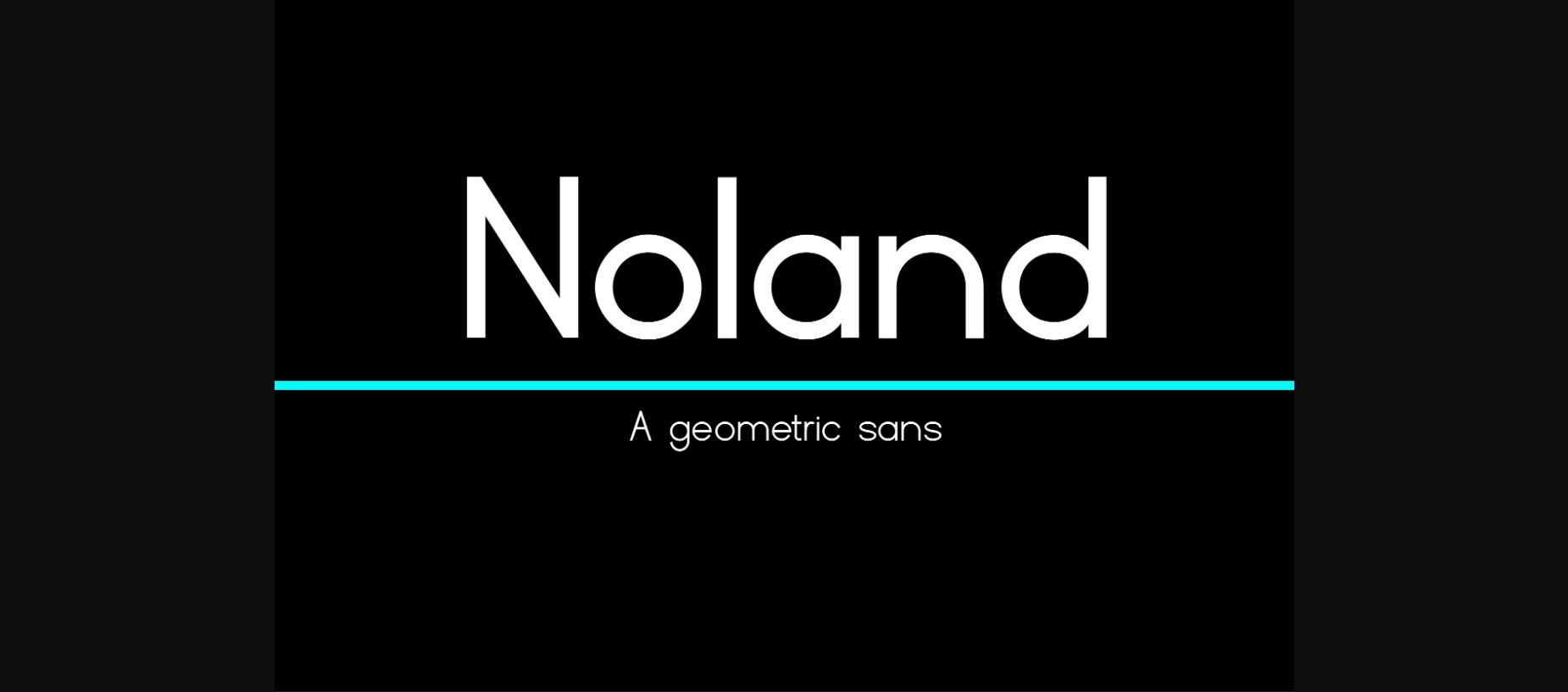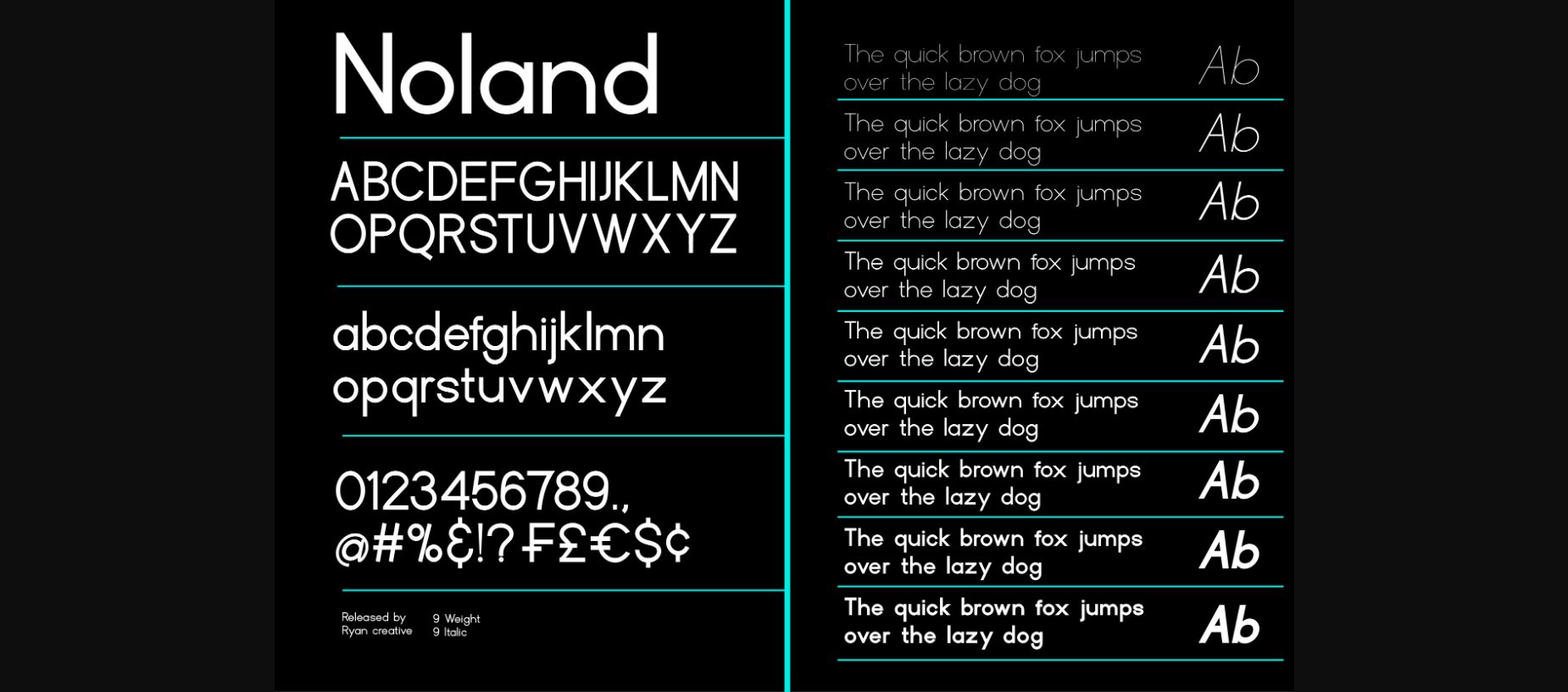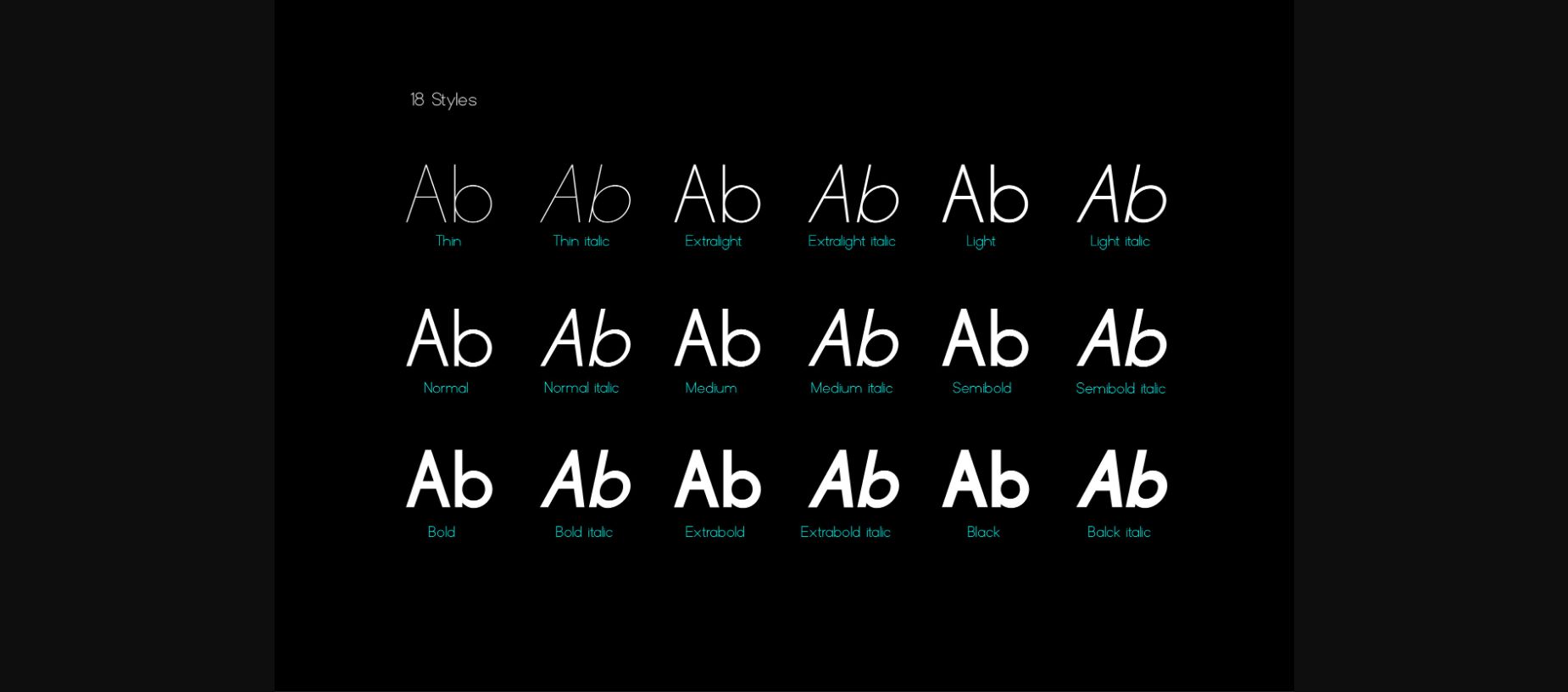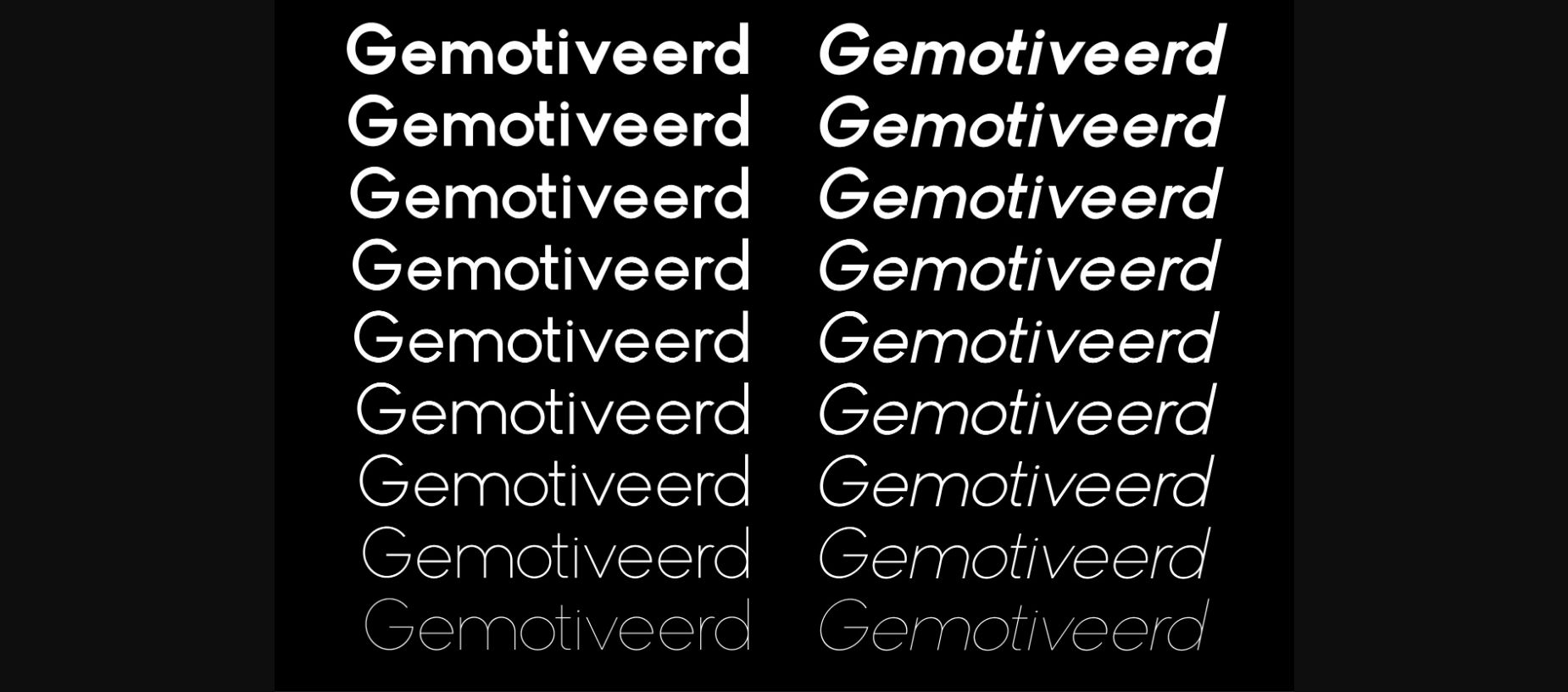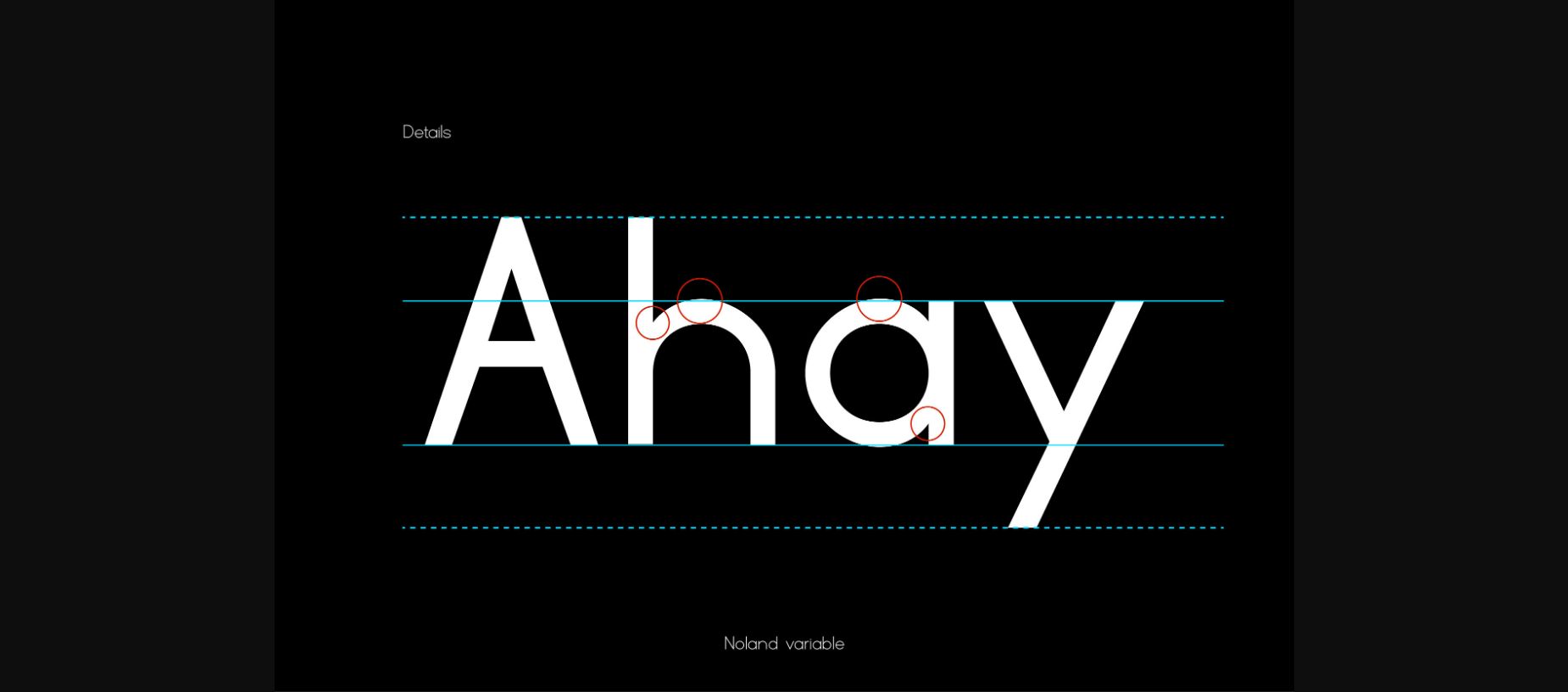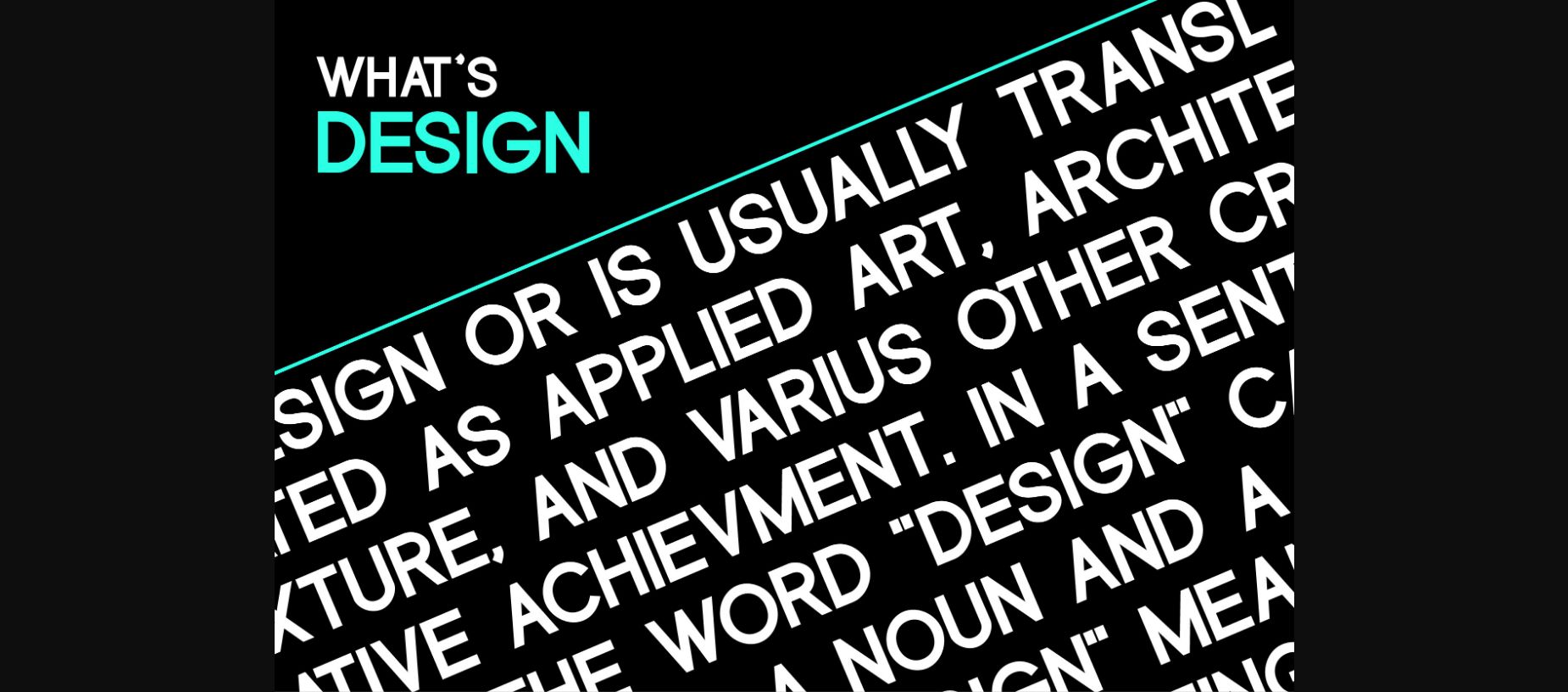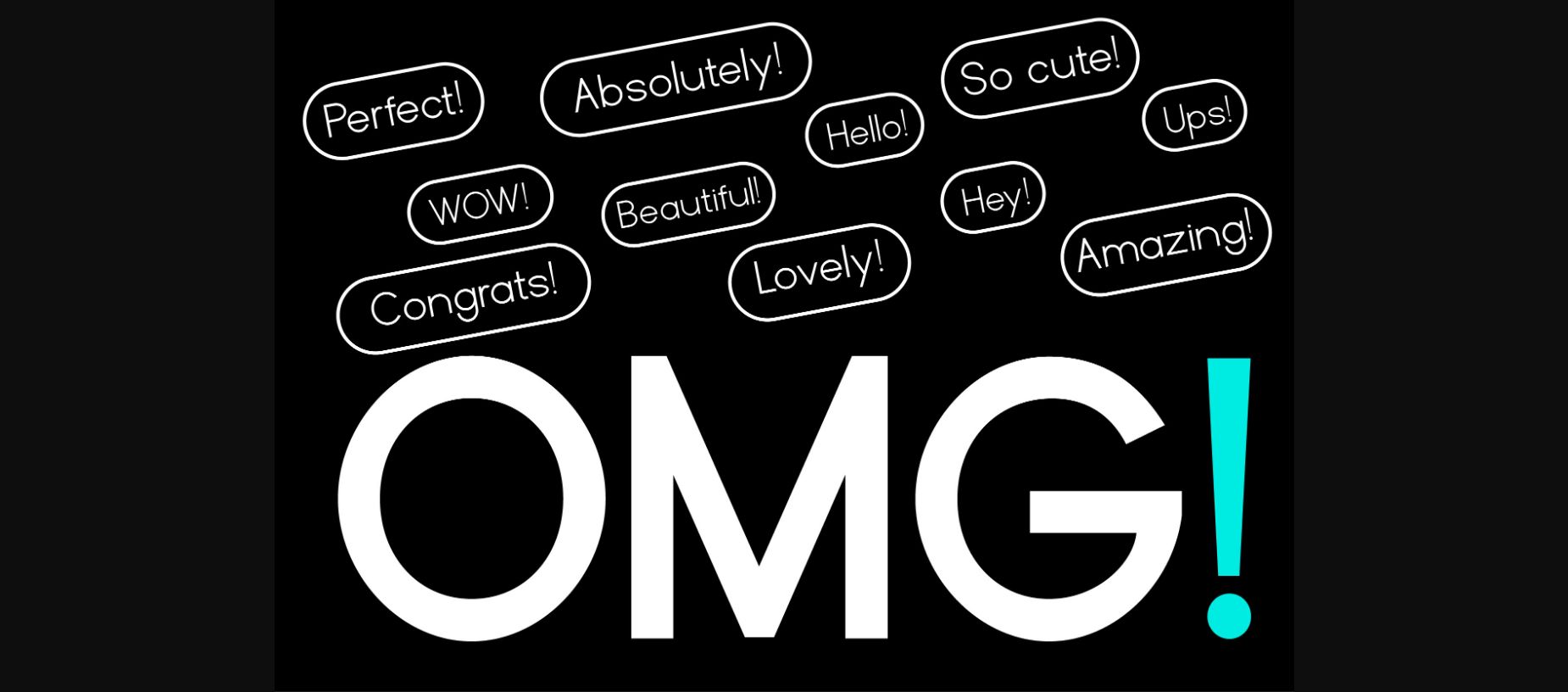
Noland Font
About Noland Font
Noland is a sand serif font with a simple and minimalist design. With a sans style that has timeless appeal and great versatility. This font has 9 variants from light to black that can work in many places, including web design and printed materials. and make it appear bolder and easier to read. Noland can be used in both modern and contemporary designs, and is suitable for use on a variety of media such as computer screens, web posters, magazines, geometric and other digital media. so it is suitable for use in designs that require clarity and firmness in each letter.